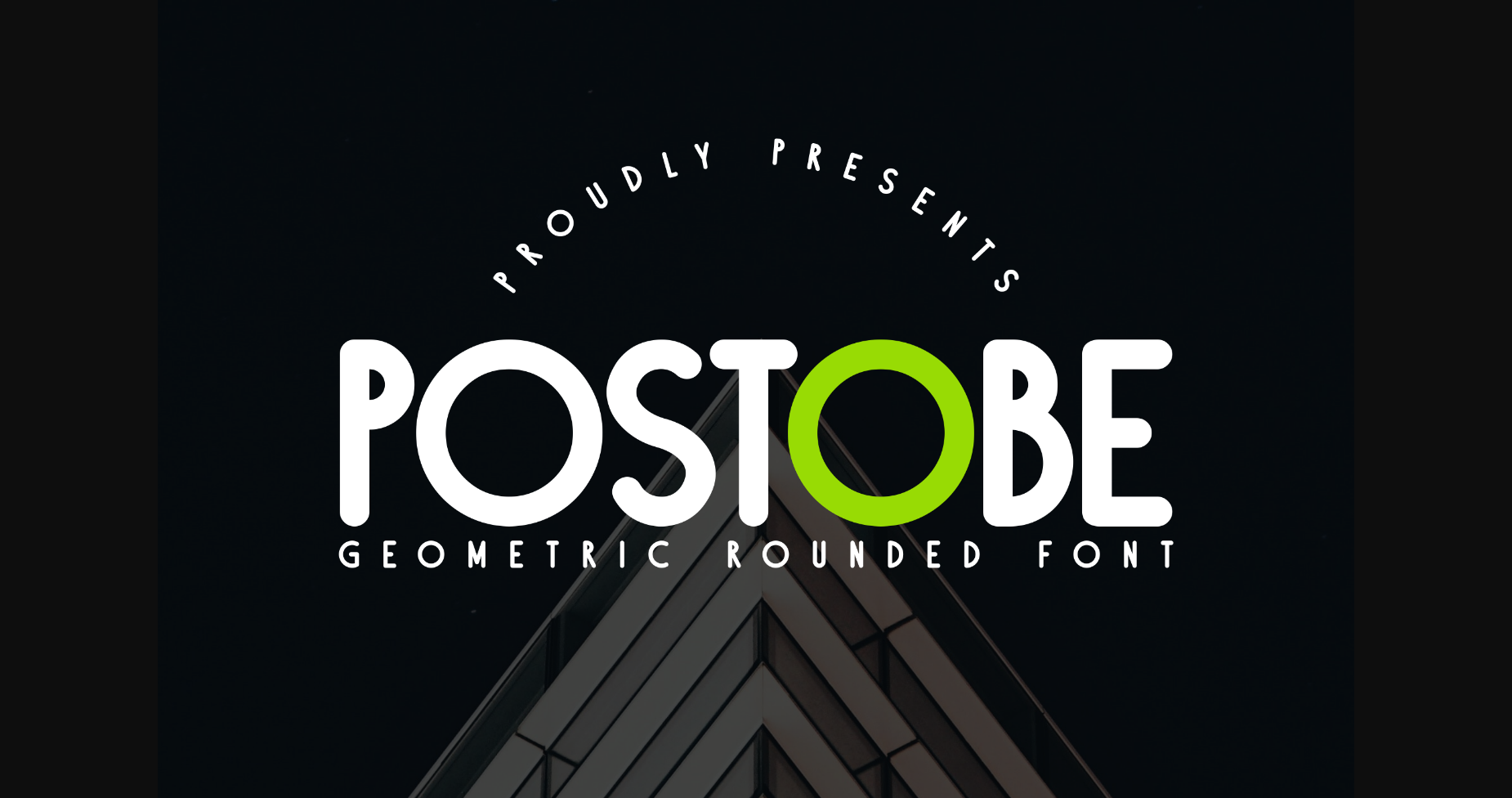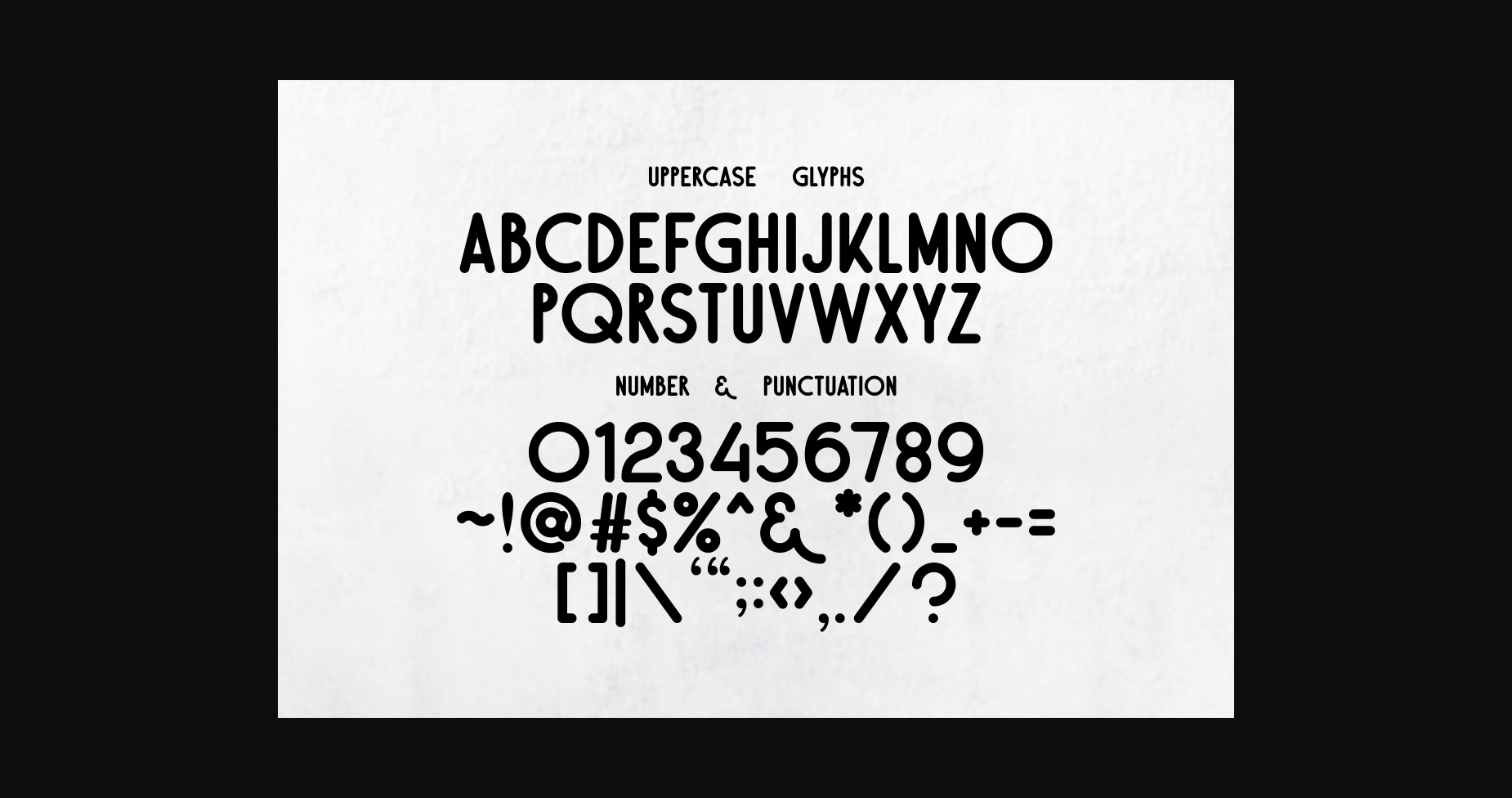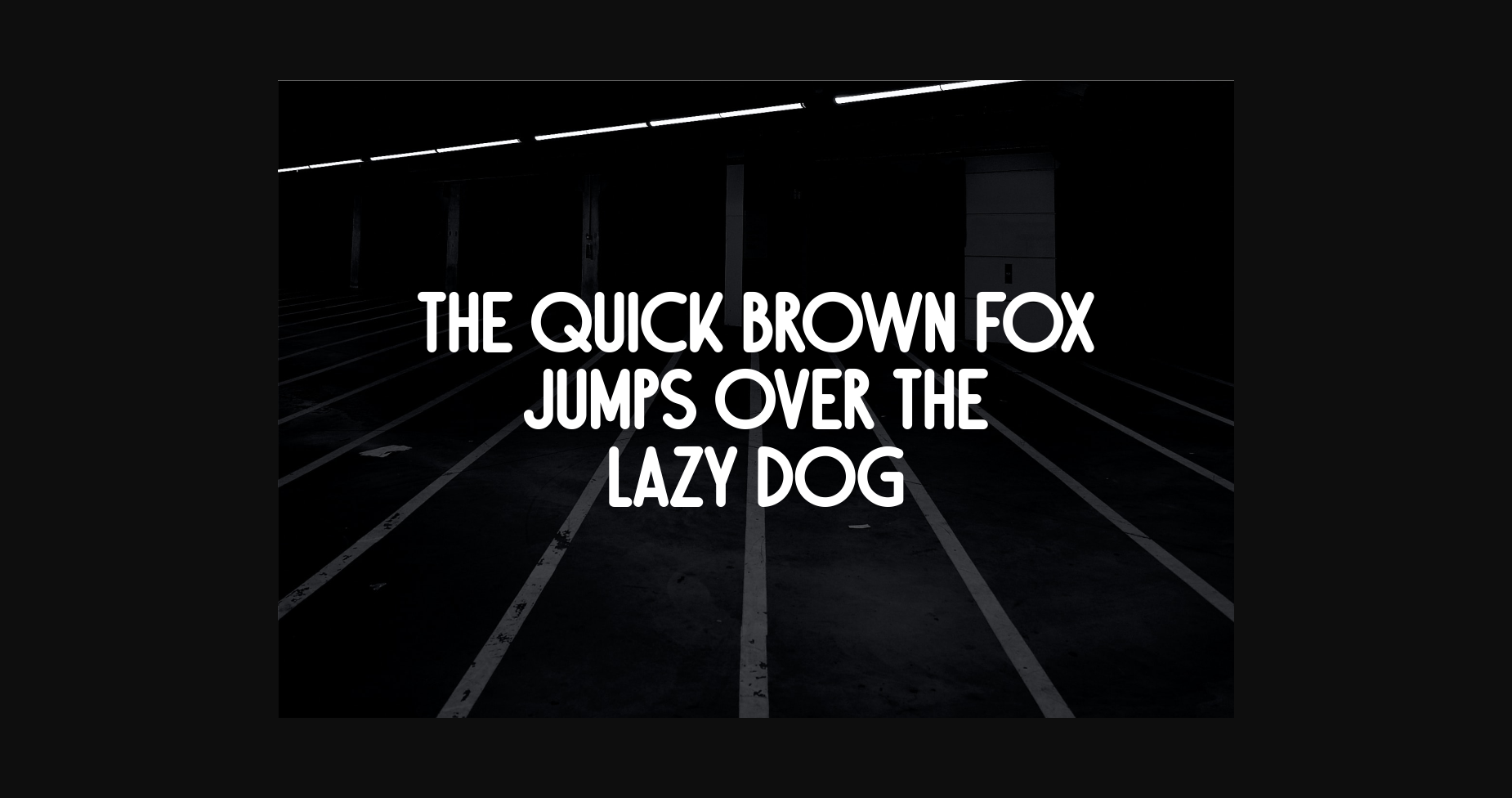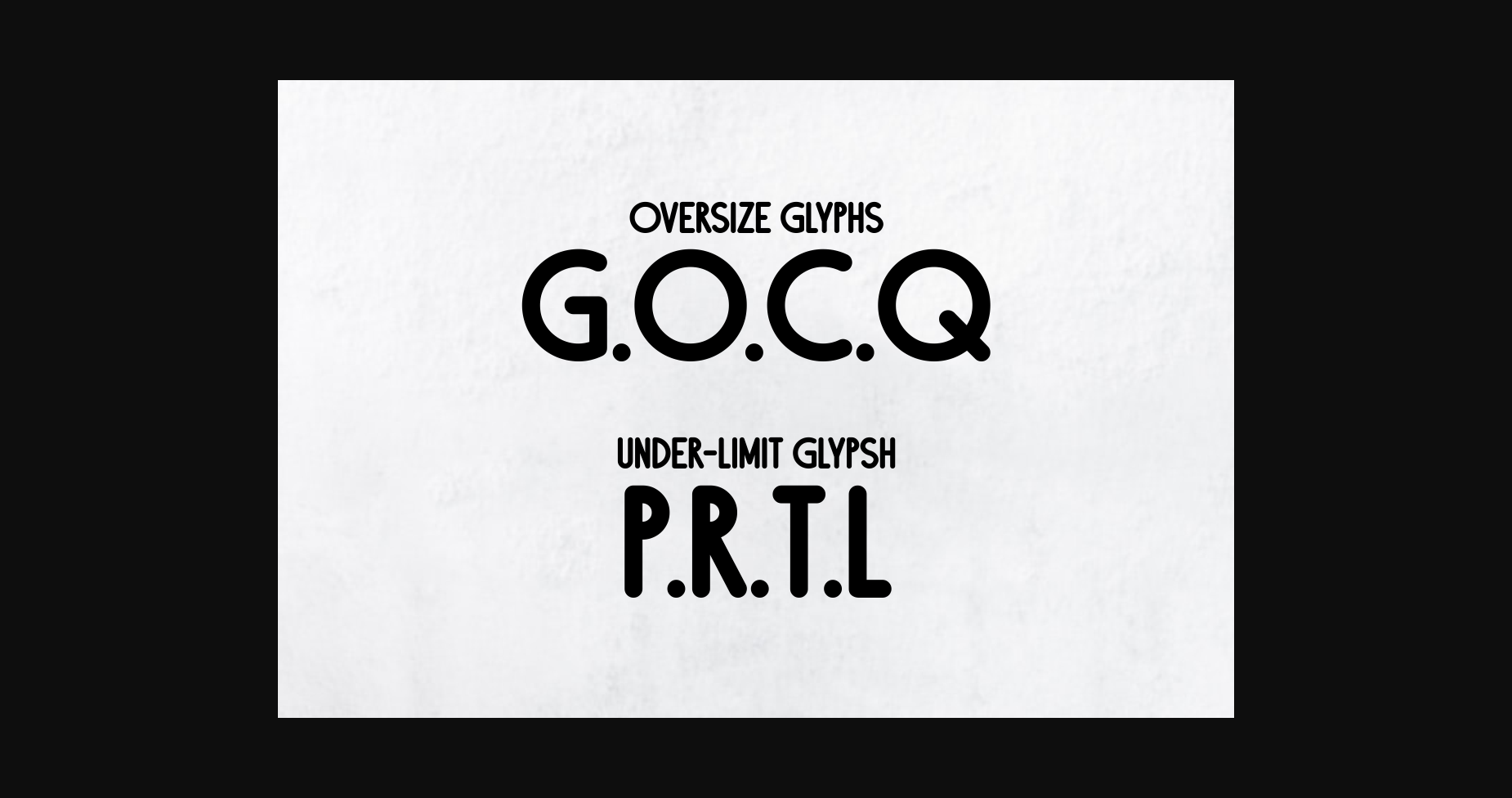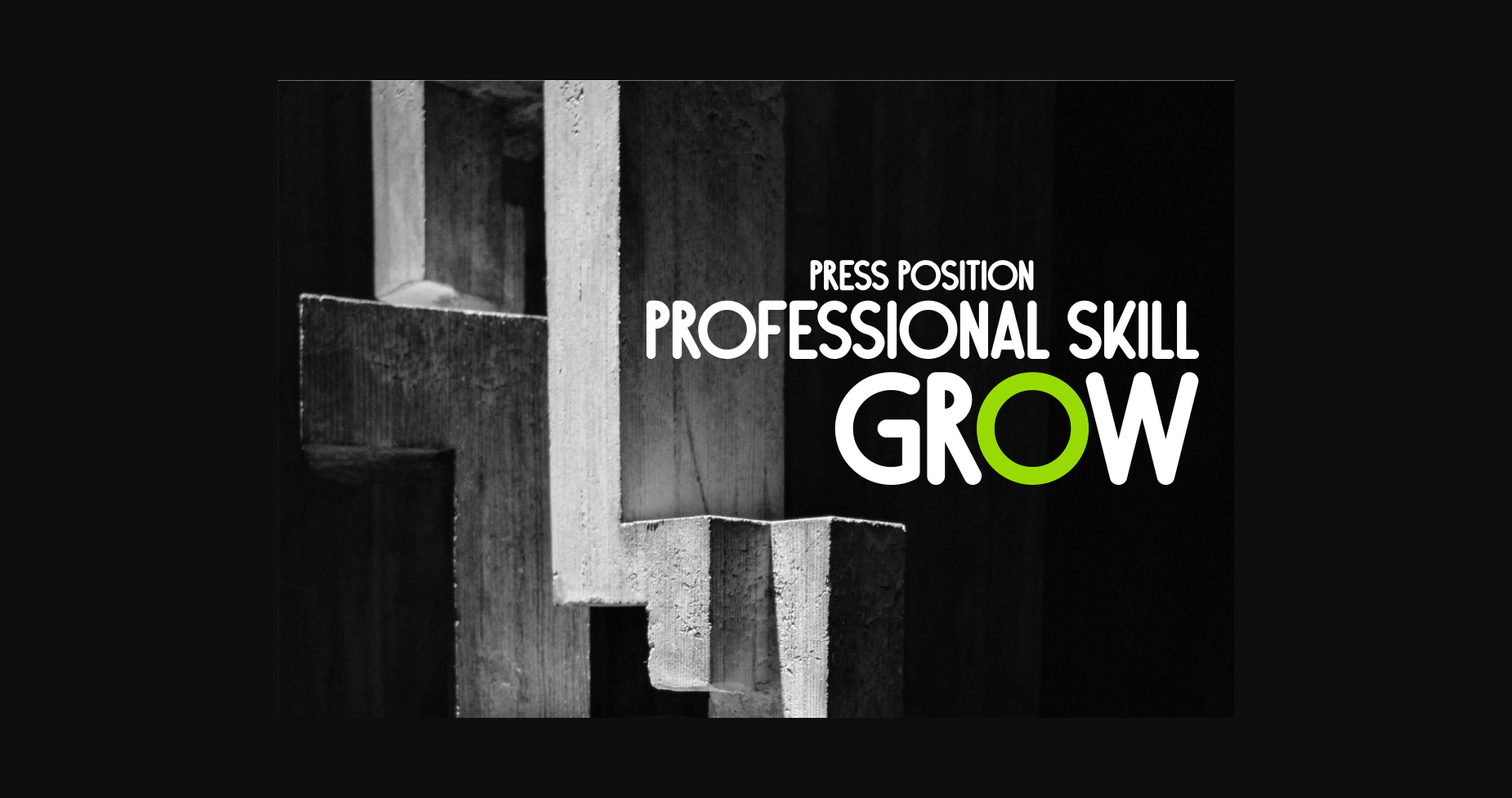
Postobe Font
About Postobe Font
Postobe is a font that has 3 sizes in its glyphs, some are made shorter, some are made normal and some are wider.
This is intended to find the geometric side of each intersection of the resulting letters.
This font can be used for:
1. Construction work engaged in the construction sector.
such as tiles, and flats.
2. Print a job, for example, brick or something that requires a high level of precision
3. Package / Box packaging of Packages
4. Or do you have your own thoughts for this font.